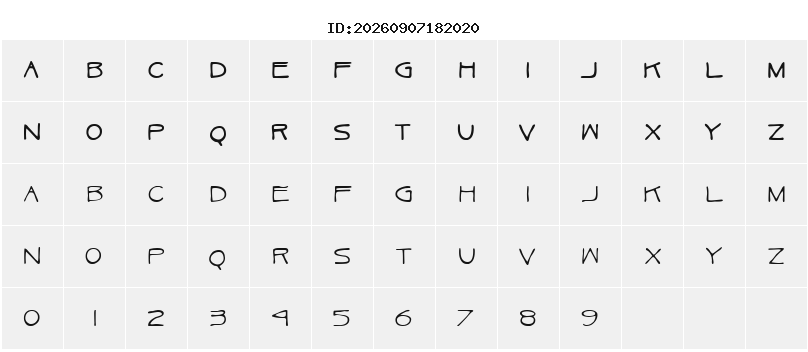
• Font Name: Ukulele
• Designer: Elling Lien
• Description: Font by Elling Lien
About Ukulele.ttf
Ukulele.ttf is a modern, elegant sans-serif font designed for ultimate readability and visual harmony. Perfect for branding, headlines, web design, and print materials.